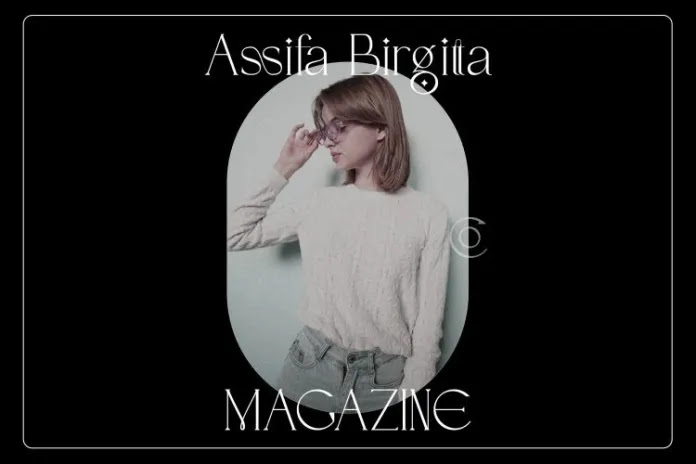
This is elegant and fragile font Mjtype with multilingual support. It’s serif font look elegant and Simple letter shapes with playful ligatures, keeping its legibility high.